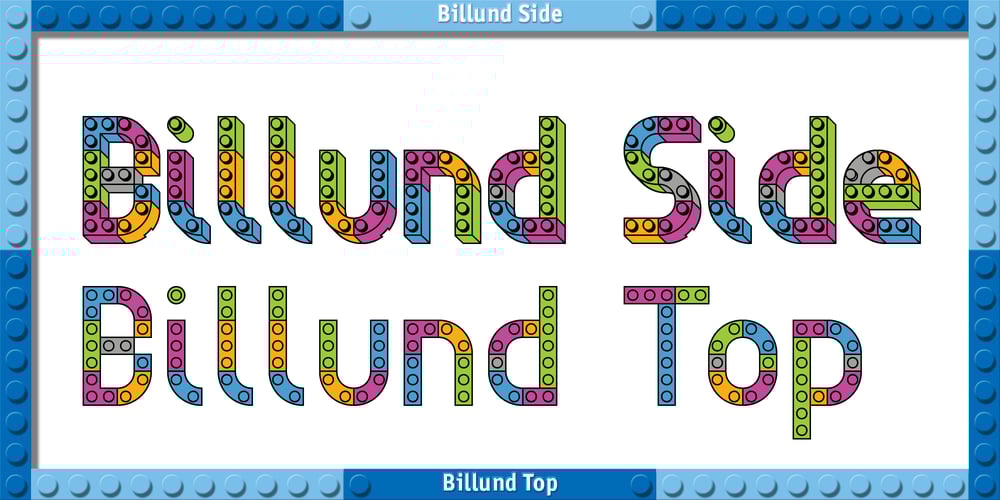
Billund Font Family was designed by Darius Samek and published by Elster Fonts. Billund contains 14 styles and family package options. Have you ever played with Lego™ and built letters? With Billund Side and Billund Top you can do it again and create colourful headlines on your Mac or PC.Billund is a font-system consisting of the two base-fonts Billund Side Outline and Billund Top Outline, extended by layer-fonts for one or five colours.Use the Outline-fonts alone to get »transparent« letters in one colour, use it with the Fill-fonts to fill the whole letter with one colour, or use the five Colour-fonts to get colourful letters in every colour you want.Billund contains cyrillic and greek glyphs and can be used for nearly a hundred languages. To expand the typographic possibilities, small caps, old style figures, numerals for small caps (c2sc), three stylistic sets, different symbols, forms, standard- and discretionary ligatures have been added, furthermore contextual alternates to avoid colliding letters.Each Billund-font contains 870 glyphs and more than 1600 kerning-pairs.Billund is named after the city of Billund (Denmark), where Lego™ was invented, the Lego™-headquarter still resides and the first Legoland™ theme park was opened in 1968 and still exists today.